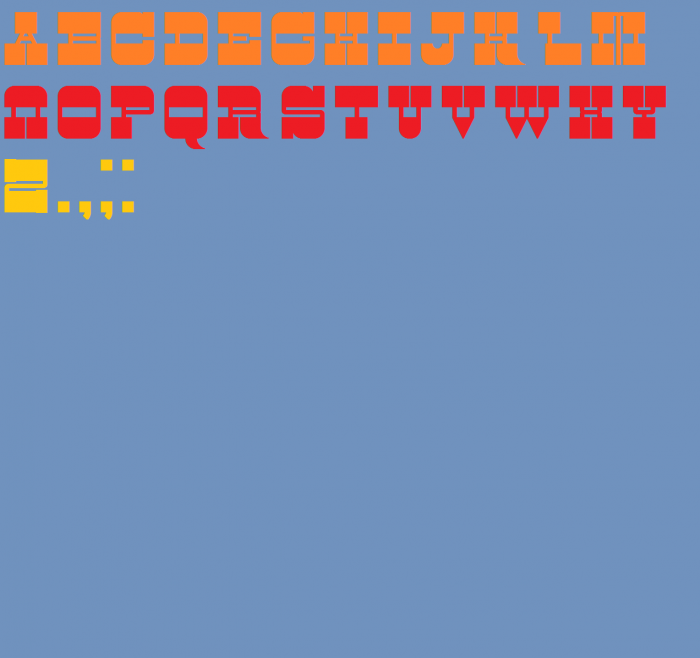
Looks pretty nice, I'd recommend squaring the outer edges of your Z though.
Fixed Font!
The letters are 5 bricks tall...
YES!
Why not make symbols and numbers
For a plus version